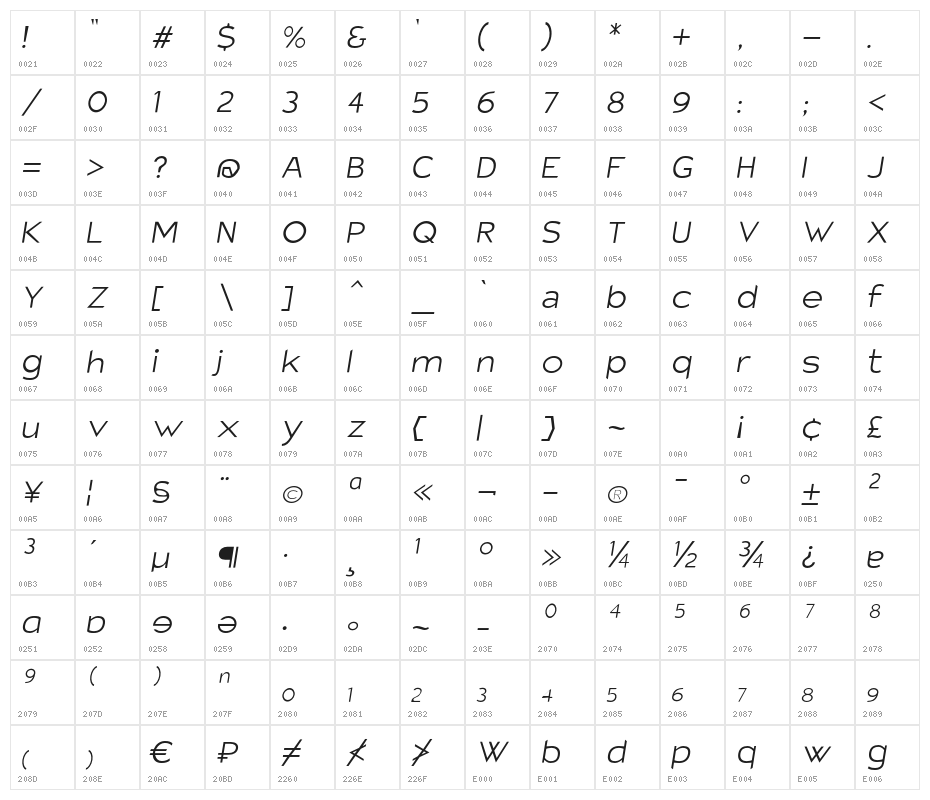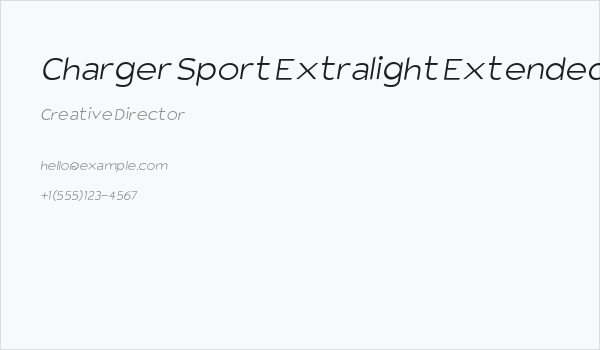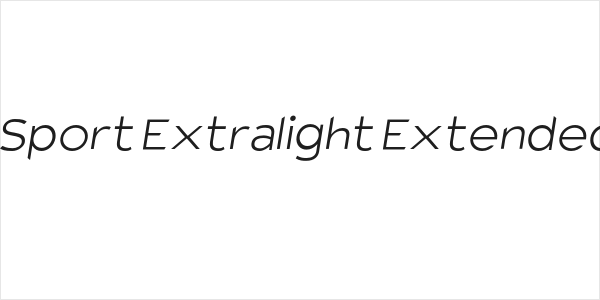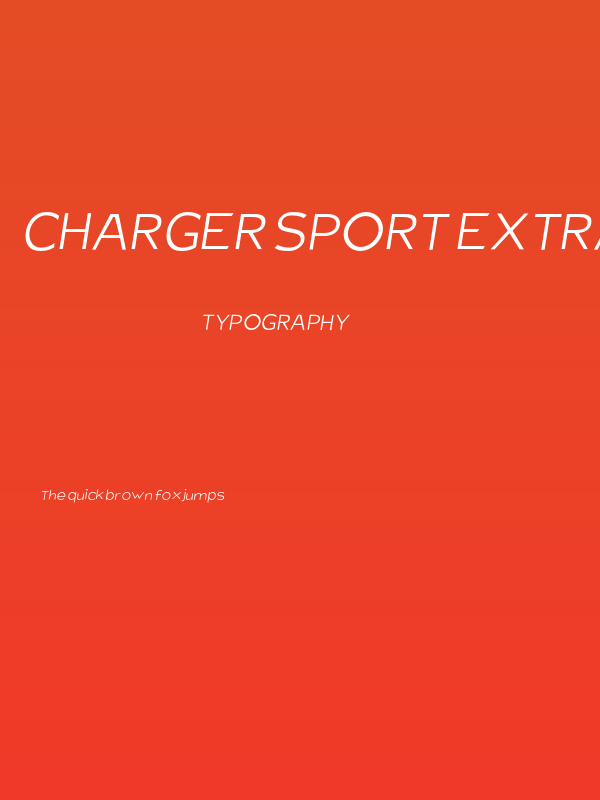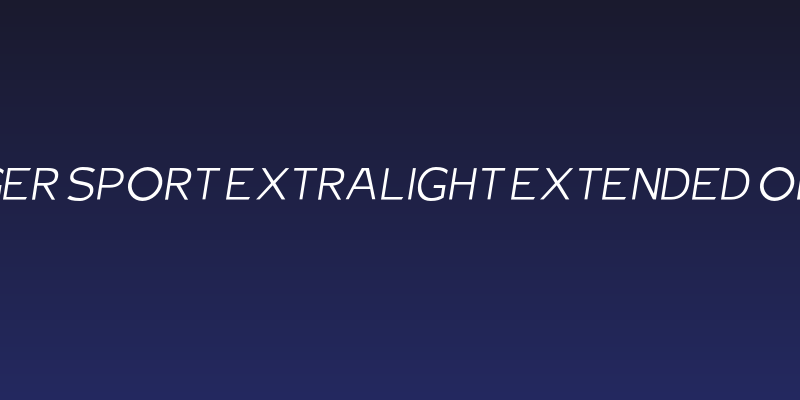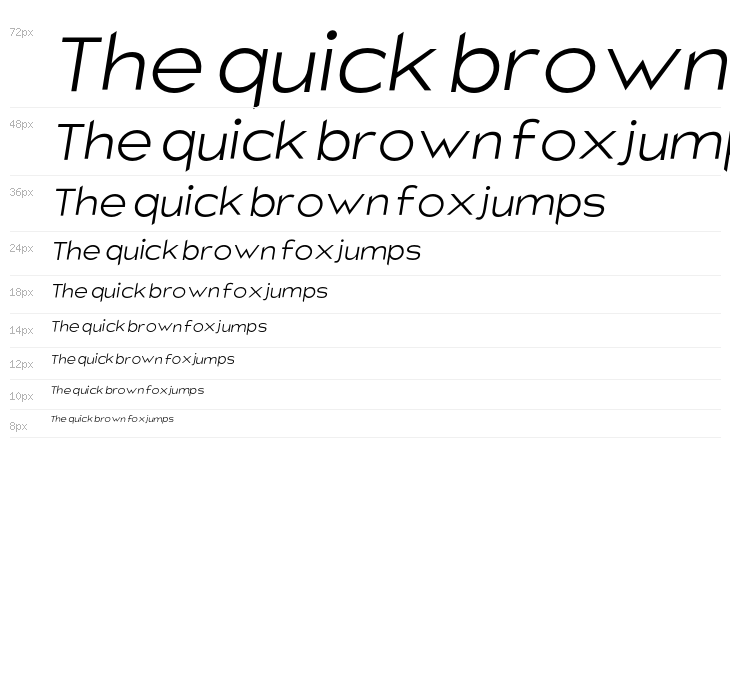
Charger Sport Extralight Extended Oblique Font
Charger Sport Extralight Extended Oblique Description
This font exhibits a sleek and modern design with an oblique orientation, giving it a dynamic and forward-moving appearance. The characters are extended, providing a sense of openness and space, while maintaining an extra-light weight that contributes to its elegant and airy feel. The sans-serif style ensures clean lines and a contemporary look, making it suitable for a variety of design applications. The character spacing is normal, allowing for readability and clarity, and the low contrast in stroke thickness adds to its minimalist aesthetic. This font is versatile and can be used effectively in both digital and print media.